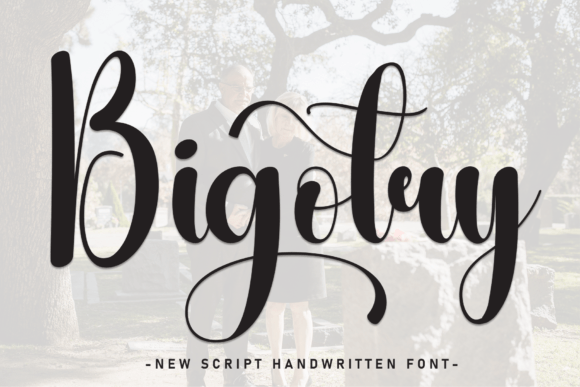
Introducing Bigotry Font, a script font family that exudes sweetness and friendliness, designed by the talented William Jhordy. Let your creativity blossom as you explore the endless possibilities of this charming handwritten font. Its casual and refreshing vibe makes it the perfect choice for adding a personal touch to your designs, whether it's wedding invitations, greeting cards, quotes, or any project that calls for a touch of warmth and elegance.
Step into a world of charm and elegance where letters dance with grace and personality. Bigotry Font's script-like characters are meticulously crafted to evoke a sense of joy and playfulness. Each stroke is infused with a touch of whimsy, adding a unique charm to your designs. Whether you're creating invitations for a special occasion, designing posters for a local event, or simply adding a personal touch to your social media posts, Bigotry Font will elevate your creations to new heights.
Imagine your designs adorned with the beautiful curves and flowing lines of Bigotry Font. Its bouncy and playful nature is sure to capture the attention of anyone who lays eyes upon it. Let your words flow effortlessly, as if they were written with the finest calligraphy pen. Bigotry Font's legibility and clarity ensure that your messages shine through, leaving a lasting impression on your audience.
With Bigotry Font, you'll have a font partner that understands the art of communication. Its versatile style effortlessly adapts to a wide range of design aesthetics, from classic and timeless to modern and trendy. Whether you're crafting marketing materials, branding elements, or simply expressing your creativity, Bigotry Font will seamlessly blend into your vision, adding a touch of magic and personality.